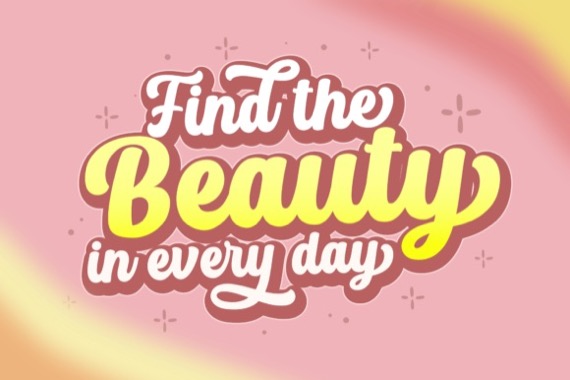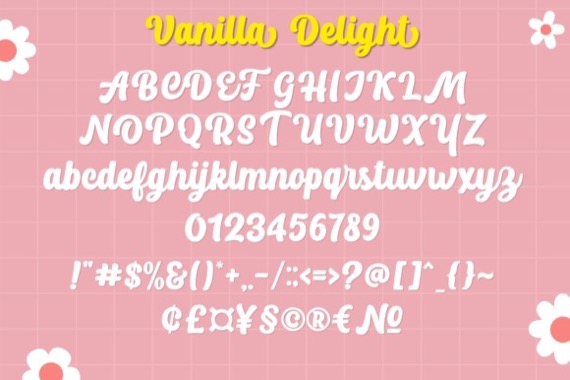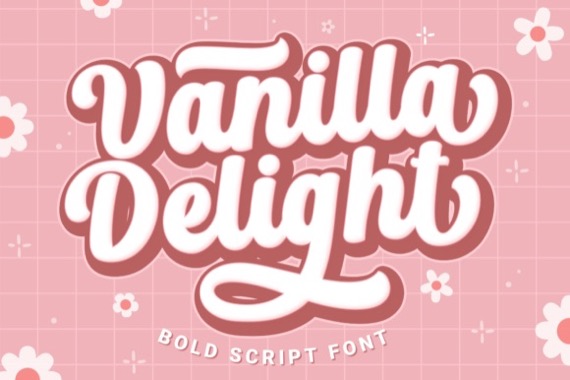
Proudly introducing a new modern handwritten font from Holydie Studio, Vanilla Delight is a bold and retro styled script font, featuring a cool flow. It has beautiful and well balanced characters and as a result, it matches a wide pool of designs. This font is PUA encoded which means you can access all of the glyphs and swashes with ease!
Vanilla Delight Script Font